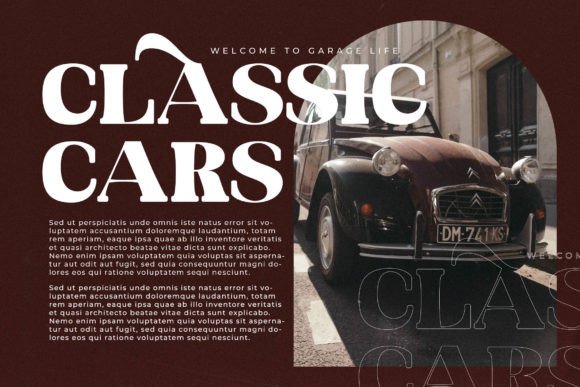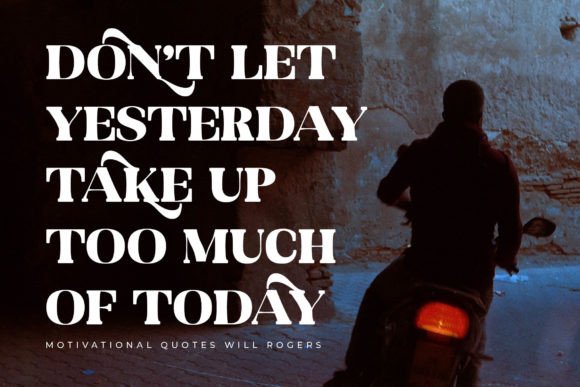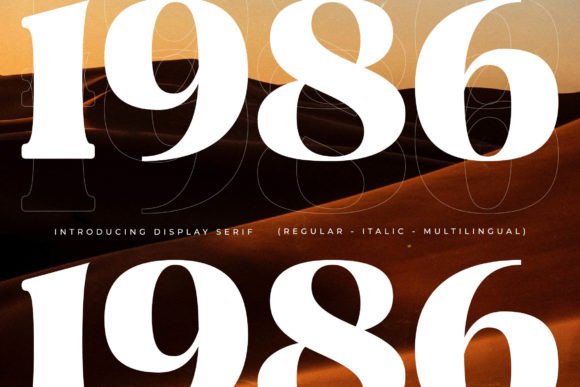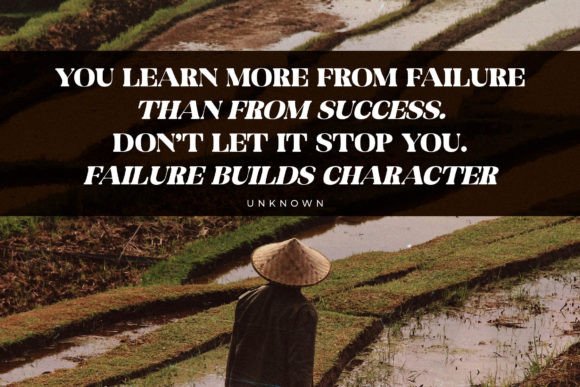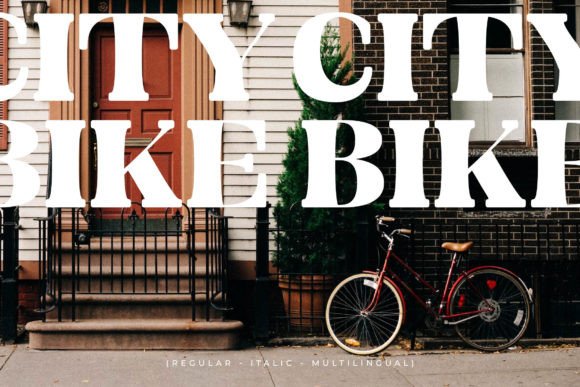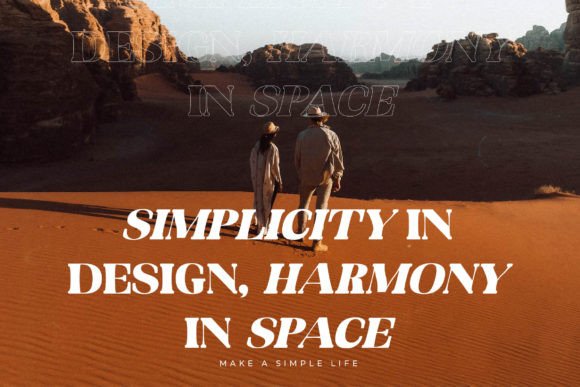
Introduction to Monte Font
As designers, we’ve all been there – staring at a blank canvas, waiting for inspiration to strike. But what if I told you that the perfect spark can be found in the right font? For those seeking a touch of elegance and sophistication, Monte Font is the answer. This stunning serif typeface has captured the hearts of designers worldwide with its unique blend of classic and modern styles.
Key Features of Monte Font
- Unique, hand-drawn design with a transparent background, ideal for creative projects.
- High-quality font with a wide range of characters, including uppercase and lowercase letters, numbers, and punctuation.
- Perfect for designers looking for a distinctive, high-quality font to add a touch of elegance to their designs.
Honest Review: Monte Font
- ✨ High-quality glyphs that are perfect for any design project
- ✨ A wide range of languages supported, making it a versatile font
- ✨ A transparent background, which makes it easy to integrate with any design
Monte Font
Tips for Getting the Most Out of Monte Font